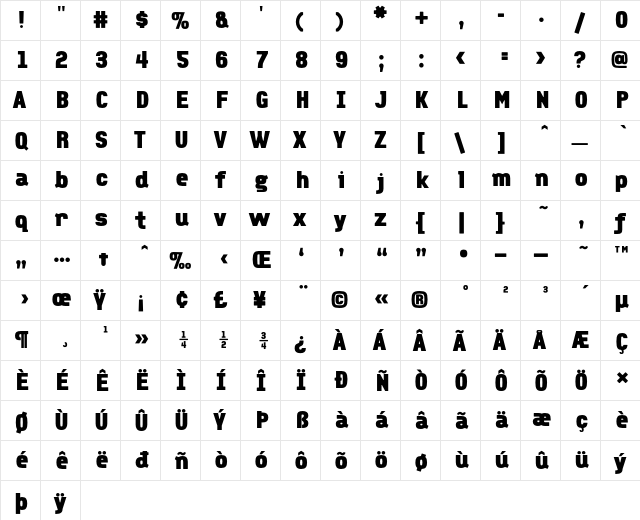
FauxCRA ExtraBold
Design Context for FauxCRA Typeface
FauxCRA is a composed and adaptable typeface that performs quietly and consistently across a wide range of design contexts. The heavy weight commands attention and anchors typographic hierarchies.